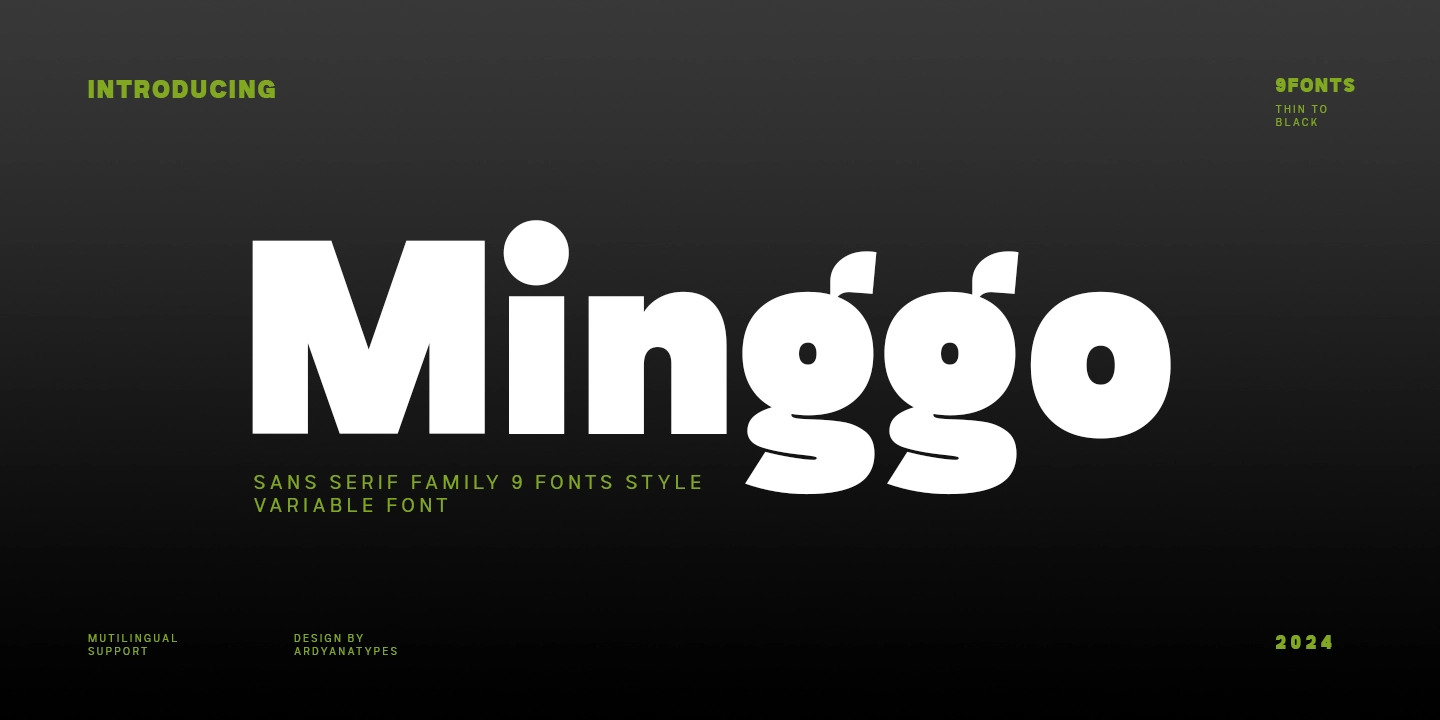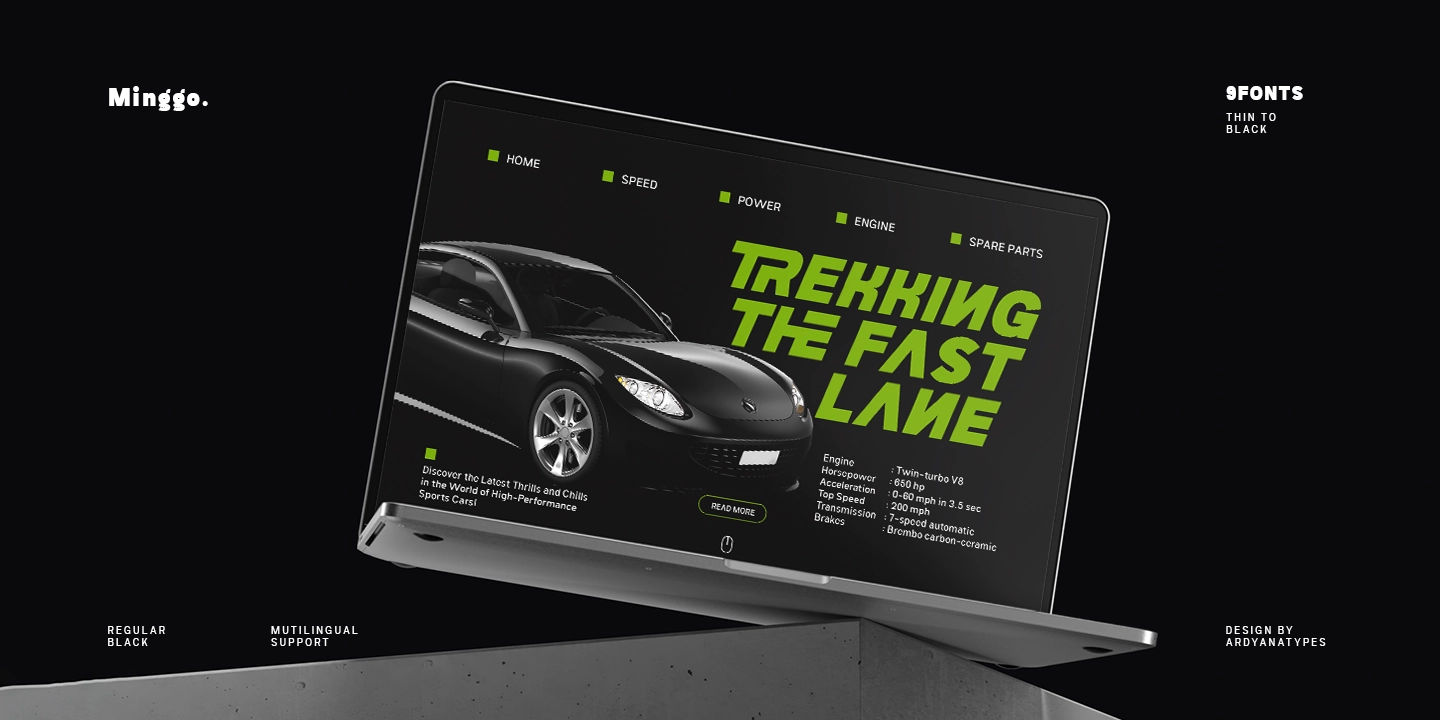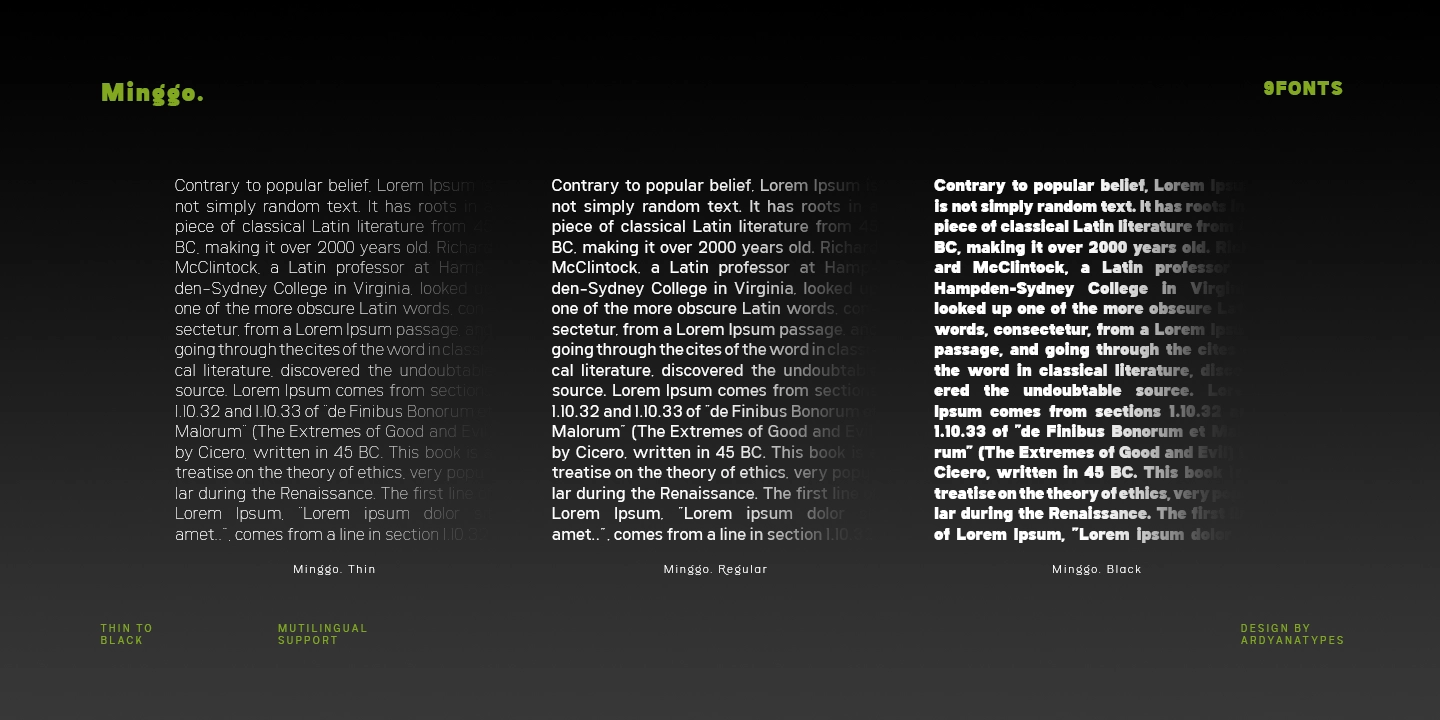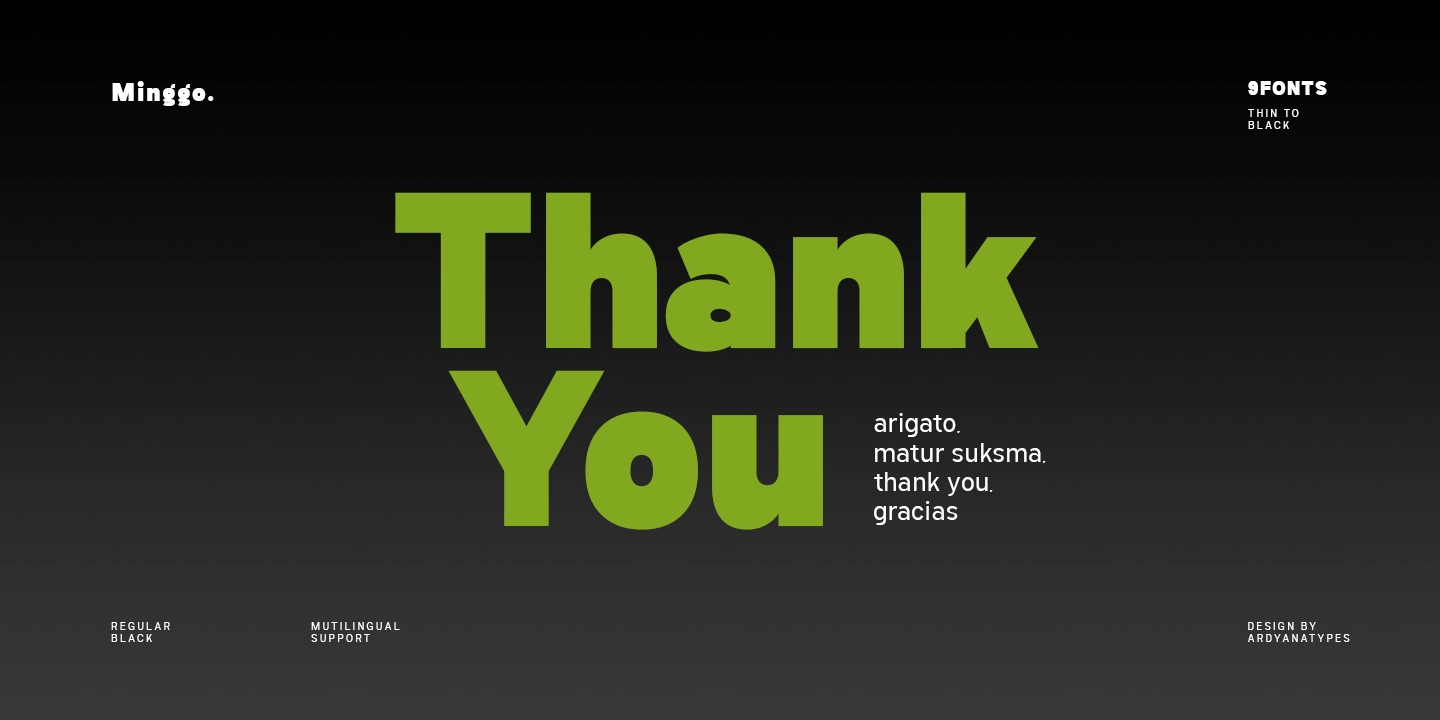
Minggo
Minggo is a bold and elegant sans-serif font meticulously designed to meet extraordinary branding and design needs. Created with special attention to detail, It offers 9 levels of thickness, ranging from Thin to Black, providing maximum flexibility for designers to explore various styles.
Not only does Minggo offer a range of thicknesses, but it also comes equipped with rich OpenType features and multilingual support. These features allow users to expand their creativity in every design project using the Minggo font.
Whether you're designing book titles, movie posters, business cards, logos, or other branding needs, Minggo is the perfect choice to convey a professional and modern impression. Combining excellence in design and functionality, Minggo is ready to become a valuable asset in every design project.